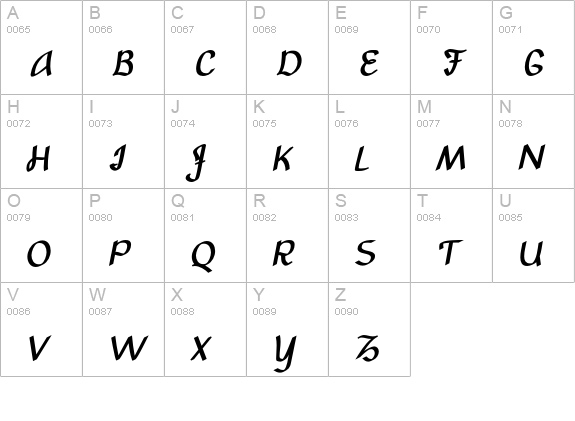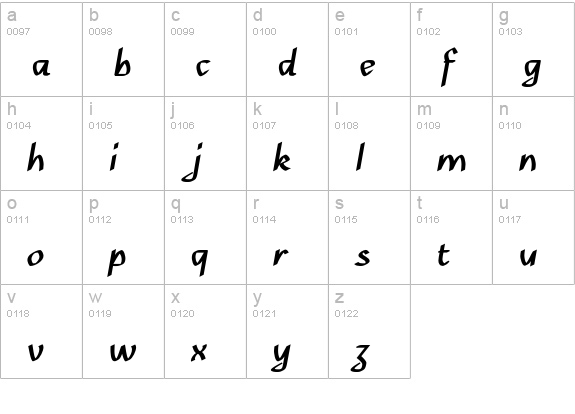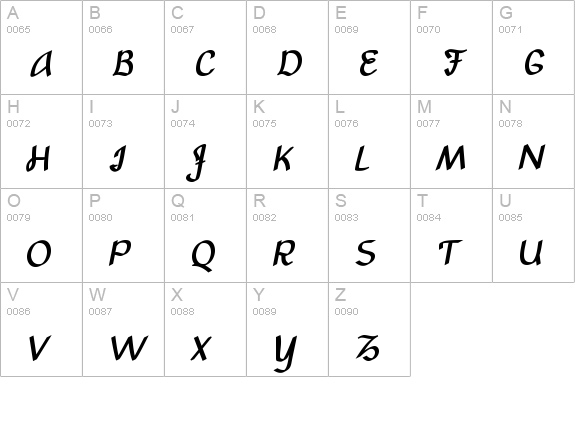
DaemonBold Font Details
Introducing DaemonBold, an incredibly stylish and captivating font that is sure to make a bold statement in any design project. With its strong and commanding presence, this typeface exudes confidence and sophistication. DaemonBold is the perfect choice for those seeking a font that effortlessly combines elegance with a touch of edginess. Its sleek and modern letterforms are meticulously crafted, ensuring flawless legibility in any size or application. One of the best aspects of DaemonBold is that it is available for free. Yes, you read that right! This stunning font can be yours without spending a single penny. Simply head over to FontsMarket.com, where you can freely download DaemonBold and add it to your font library. Whether you're designing a logo, creating eye-catching headlines, or crafting striking posters, DaemonBold will instantly elevate your work to new heights. Its versatility knows no bounds, as it seamlessly adapts to various design styles and themes. With DaemonBold, you can unleash your creativity and bring your vision to life. So don't miss out on this remarkable font that combines elegance, boldness, and the best part - it's free! Download DaemonBold today at FontsMarket.com and let your designs shine like never before.